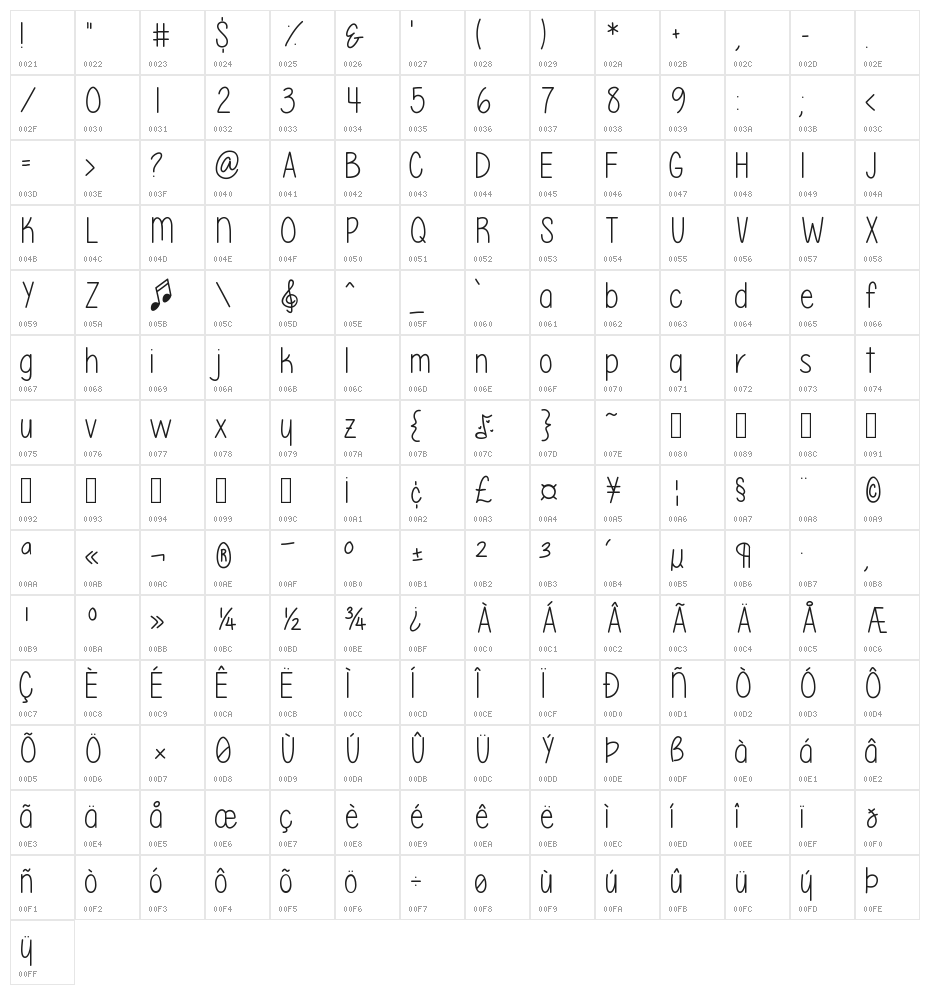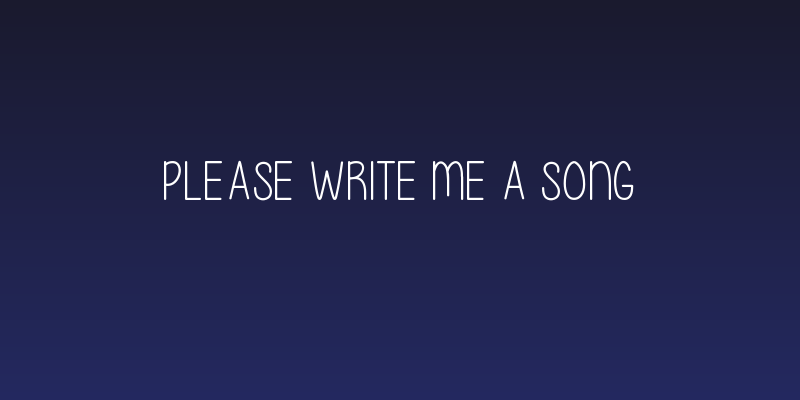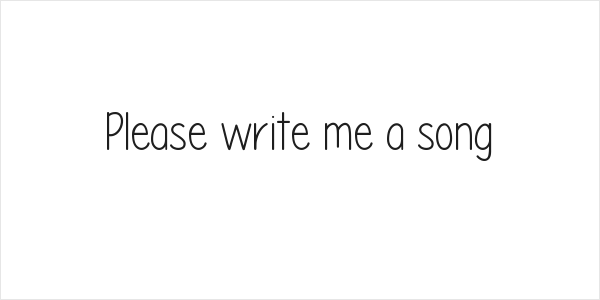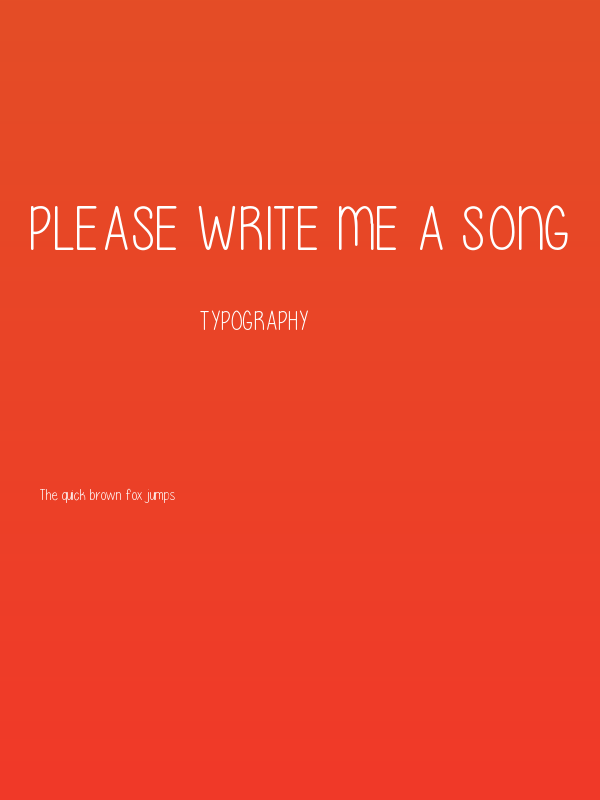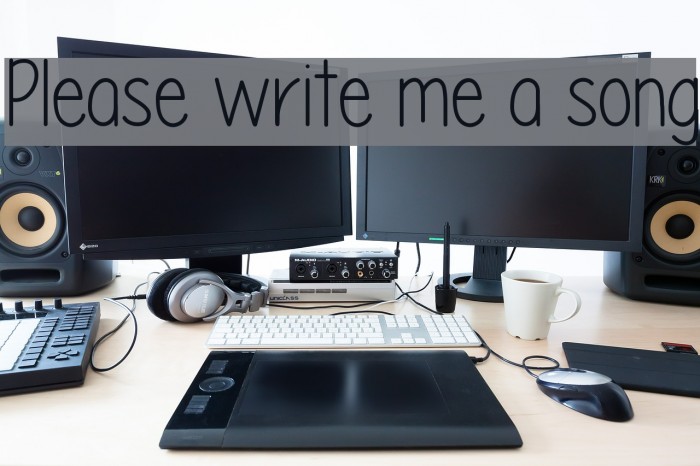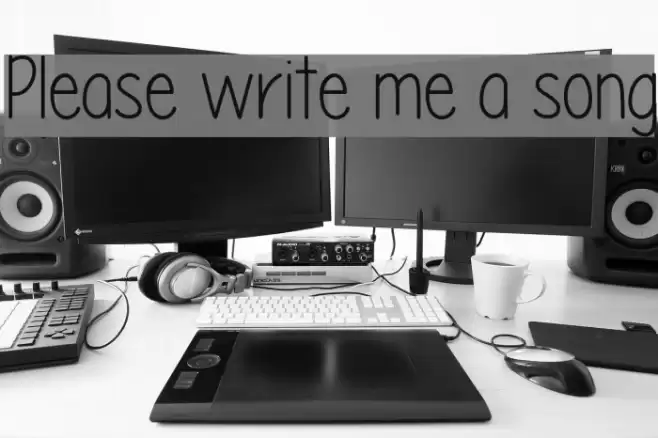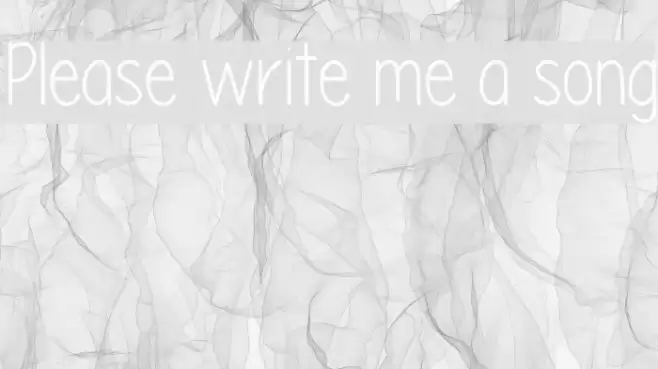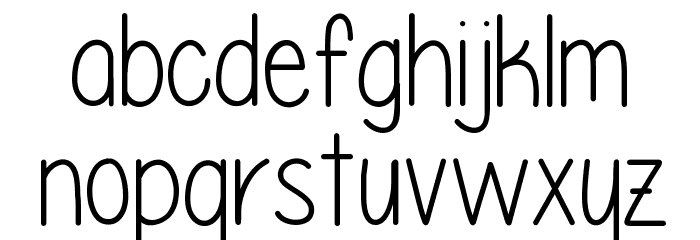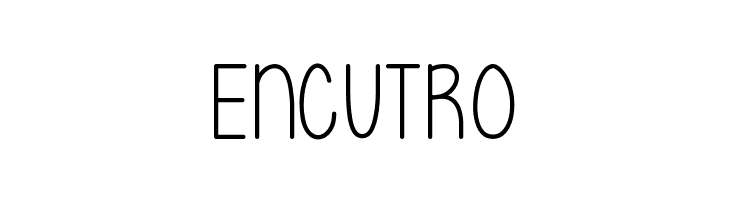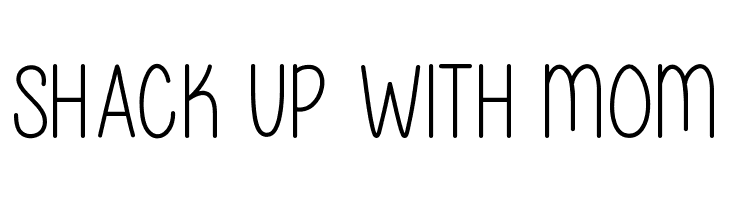
Please write me a song Font
Please write me a song Description
This font features a playful and whimsical design with rounded edges and a hand-drawn appearance. The letters are tall and narrow, giving a sense of height and elegance while maintaining a casual and approachable feel. The uppercase and lowercase characters are consistent in style, with smooth curves and a slight slant that adds to the font's charm. The numerals and special characters are equally well-crafted, ensuring a cohesive look across all text. The overall design is clean and legible, making it suitable for a variety of creative projects.
| Width | Condensed |
| Overall Style | Casual |
| Use Case | Headlines, Logos, Invitations |
| Proposed Projects | Ideal for children's books, greeting cards, playful branding, and casual invitations. |